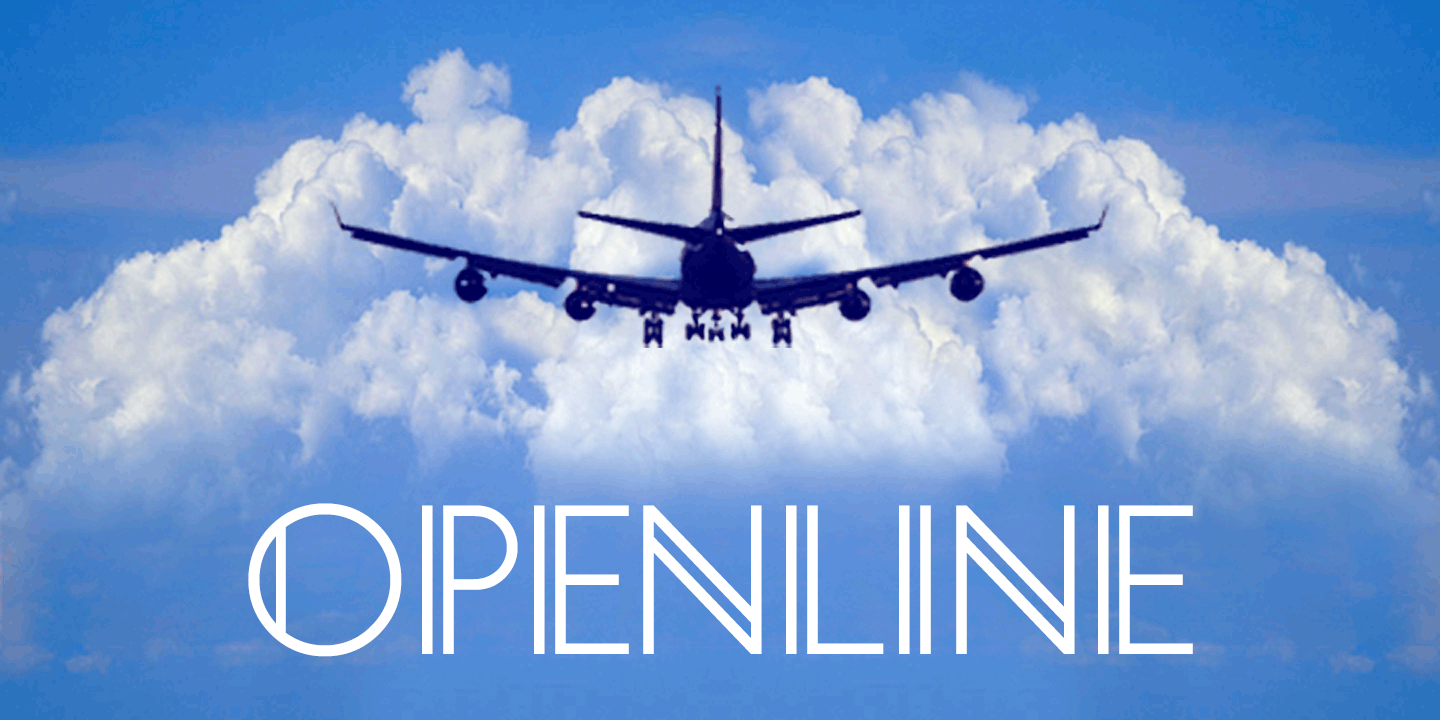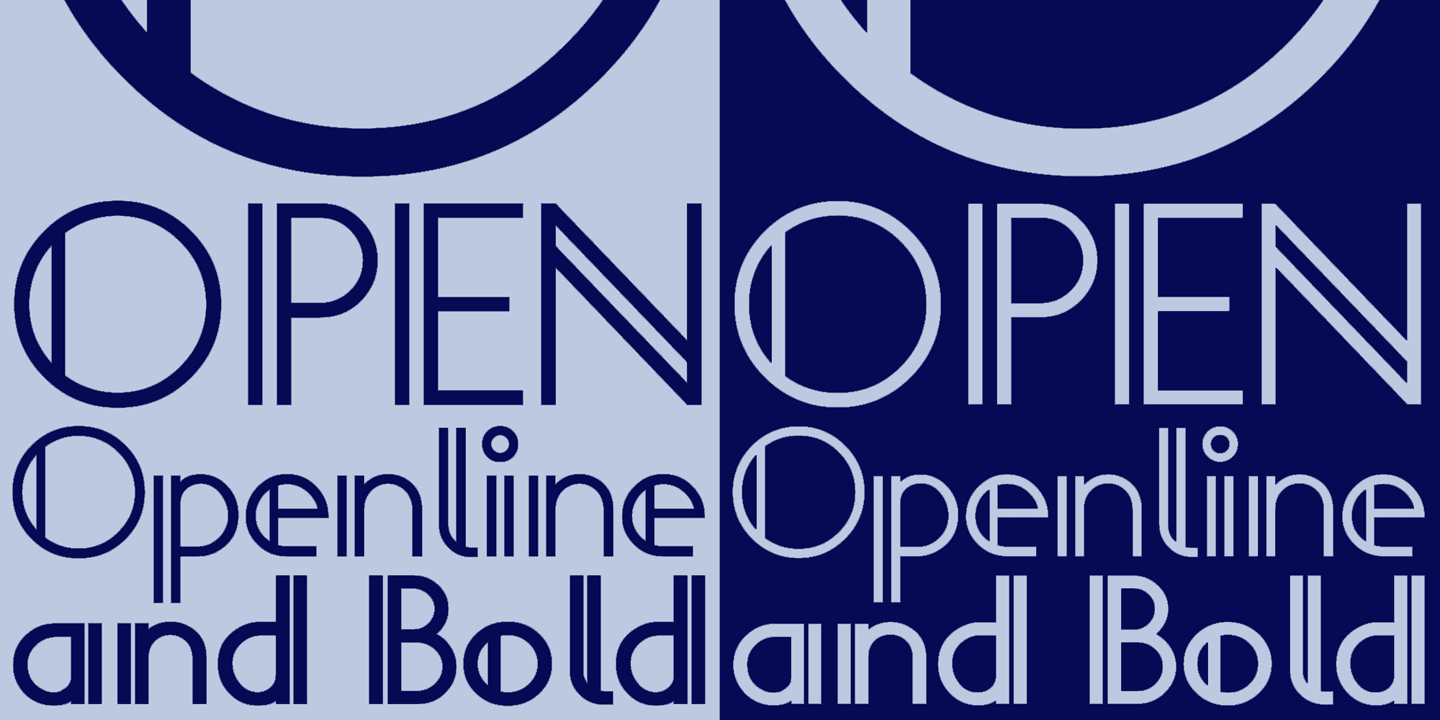
HomeFont BrosArt Deco (1910-1935)Openline Art Deco (1910-1935)Sans Serif Openline FacebookXPinterestWhatsApp 1 of 2 About Openline An open inline typeface with a clean, modern feel. Openline offers a more contemporary alternative to Art Deco inlines from the 1920s. Both Regular and Bold versions are included.  DOWNLOAD NOW People also explored Dirgantara Font Pascal The Kedri Art Font Rattae Font Striped Pencil Font Back to School Font Ornella Font Handaru Font Journey of Life Font 330 0 TagsOpenline Font Previous articleDirectors ScriptNext articleZeit LEAVE A REPLY Cancel reply Comment: Please enter your comment! Name:* Please enter your name here Email:* You have entered an incorrect email address! Please enter your email address here Website: Save my name, email, and website in this browser for the next time I comment. Personal Use Free Santhony Personal Use Free Read more about this font Talking on Personal Use Free Read more about this font Droid Personal Use Free Read more about this font Maharany Personal Use Free Read more about this font BLOG 5 Fonts That Will Dominate Design Trends in 2026 5 Fonts for 2026 That Will Dominate Design Trends Typography plays a critical role in visual communication, and as we look ahead to 2026, it’s... Free vs Paid Fonts: Why Investing in Premium Fonts Is Worth It Best Fonts for T-Shirt Design – Top 2025 Picks Elegant Wedding Invitation Fonts – Handwritten & Script Fonts